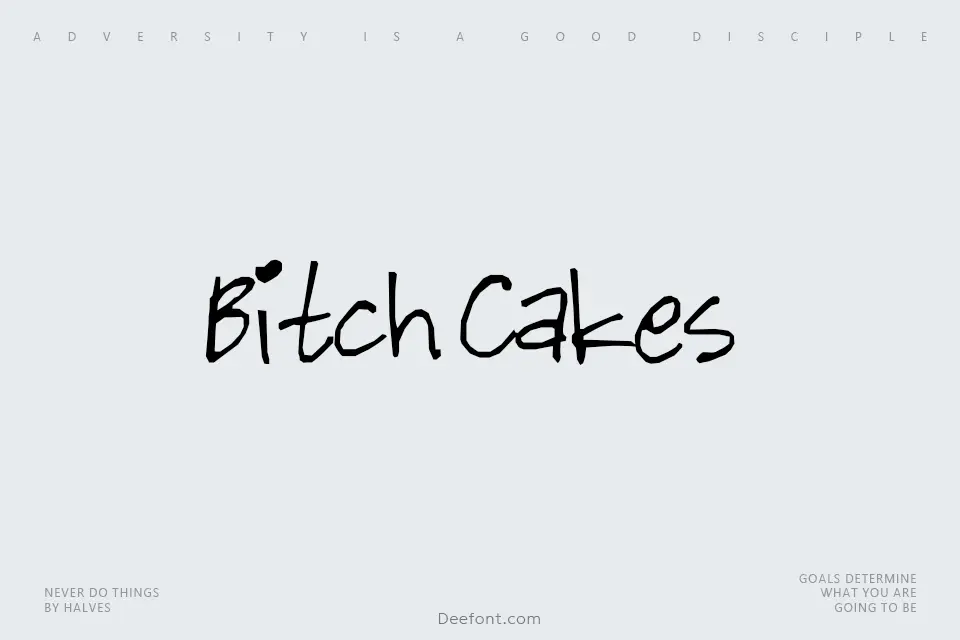
Bitch Cakes Font
Bitch Cakes is a dynamic handwritten script font characterized by expressive, irregular strokes and a casual, playful energy. Designed with bold letterforms and slightly slanted characters, this font captures the authentic feel of spontaneous handwriting with artistic flair. Its uneven baseline and organic texture make it ideal for informal design contexts including poster headlines, logo designs, social media graphics, greeting cards, product packaging, and creative branding projects. The font's 88 glyphs deliver versatility for personal projects requiring a handcrafted, approachable aesthetic that stands out with personality and charm.